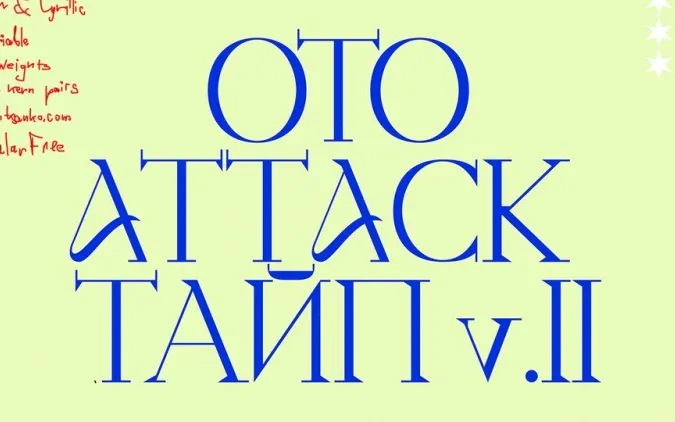
Otto Attack Type 2.0 Serif Font
This is an elegantly themed font that has a dynamic serif style. It features fully rebuild glyphs with saved the core characters, new more useful forms for letters and alternatives, Cyrillic with big Ukraine centered form support. Great for social media posts, logos, invites and many other projects.